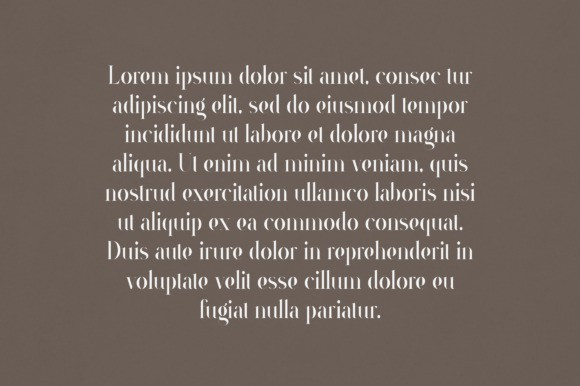
Baptisia Font
Baptisia Font is an elegant and versatile font that will make your typography truly unique! It will enchant every logo, branding, headline, or plain text!